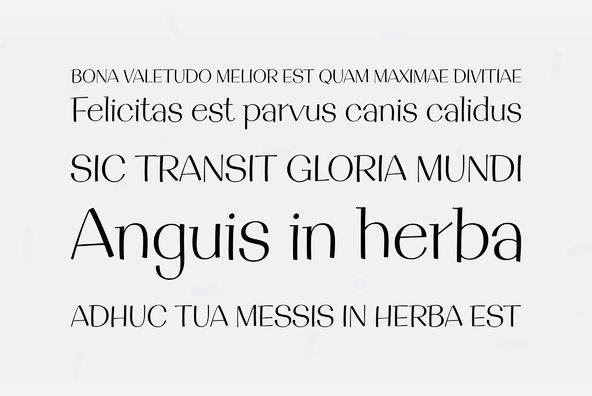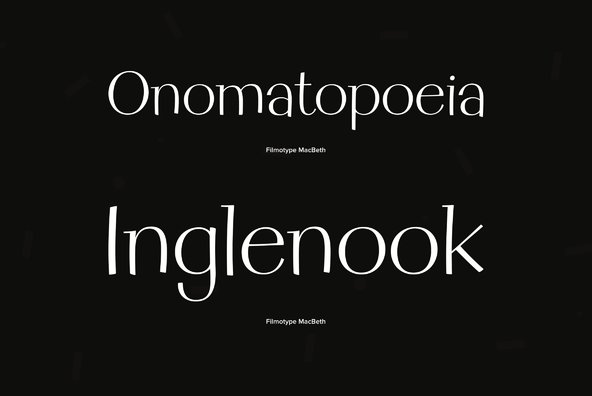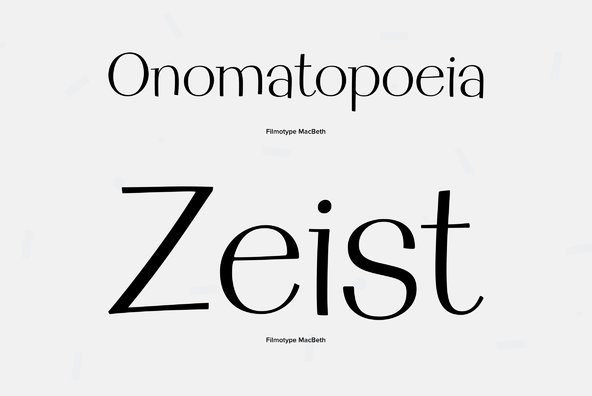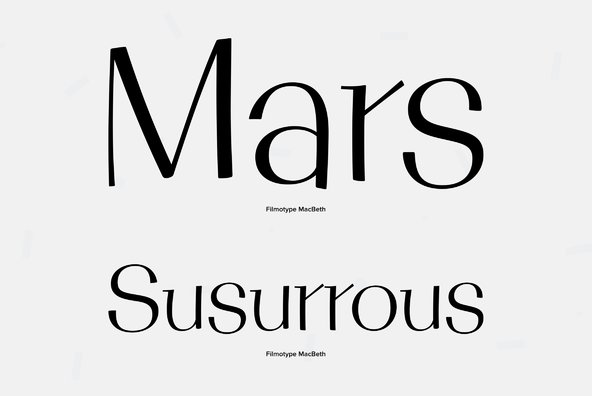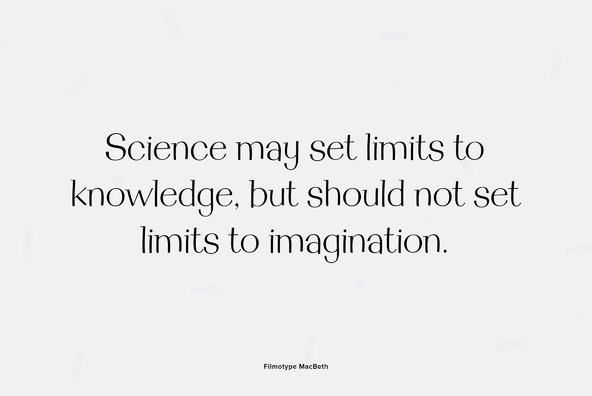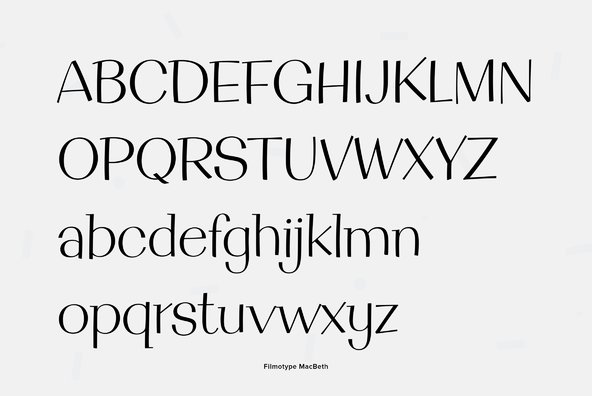
This Free Style typeface owes its origins to Lettering Inc where its original author penned a similar style prior to creating a unique version of the typeface for Filmotype in the early 1950s.
This Free Style typeface owes its origins to Lettering Inc where its original author penned a similar style prior to creating a unique version of the typeface for Filmotype in the early 1950s. Filmotype MacBeth was remastered and expanded with exacting precision and includes a full international character compliment, automatic fractionals, ordinals, and a complete suite of alternate characters in dynamic OpenType format.